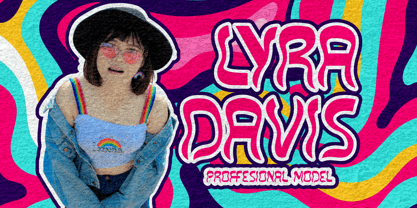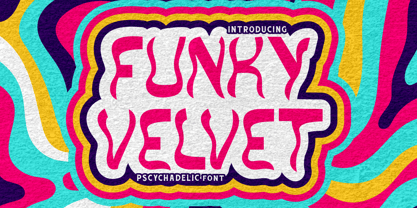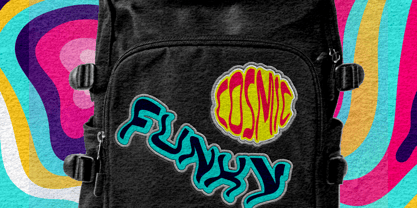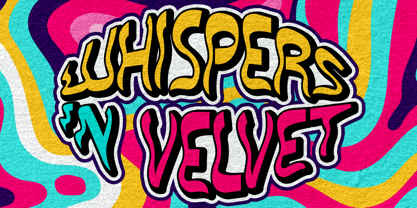
Funky Velvet
by Shanaf
The Funky Velvet Font Family was designed by Yesie Erma Yunita and published by Shanaf. Funky Velvet contains 1 styles. More about this family
Step into a vibrant world of retro-futuristic aesthetics with Funky Velvet - Psychedelic Font. This groovy typeface brings back the essence of the 60s and 70s psychedelic movement with its fluid, wavy letterforms and bold, funky design. Each character is carefully crafted to exude movement and energy, making it a perfect choice for posters, branding, music album covers, and festival-themed designs. The font's bold pink and white hues, surrounded by layered, trippy outlines in yellow, purple, and cyan, create a hypnotic and eye-catching effect. The textured background adds a vintage, hand-crafted feel, reinforcing the nostalgic yet modern appeal of this font. Whether you're creating retro-inspired artwork or bold statement pieces, Funky Velvet will take your designs on a mind-bending journey.
Ideal for logos, packaging, social media graphics, and editorial projects, Funky Velvet effortlessly captures attention with its psychedelic, funky, and electric aesthetic. It’s a must-have for designers looking to inject personality and excitement into their work. The perfect blend of vintage charm and contemporary playfulness, this font is a bold celebration of self-expression, freedom, and creativity. Elevate your designs with Funky Velvet, the ultimate psychedelic display font for making unforgettable impressions!